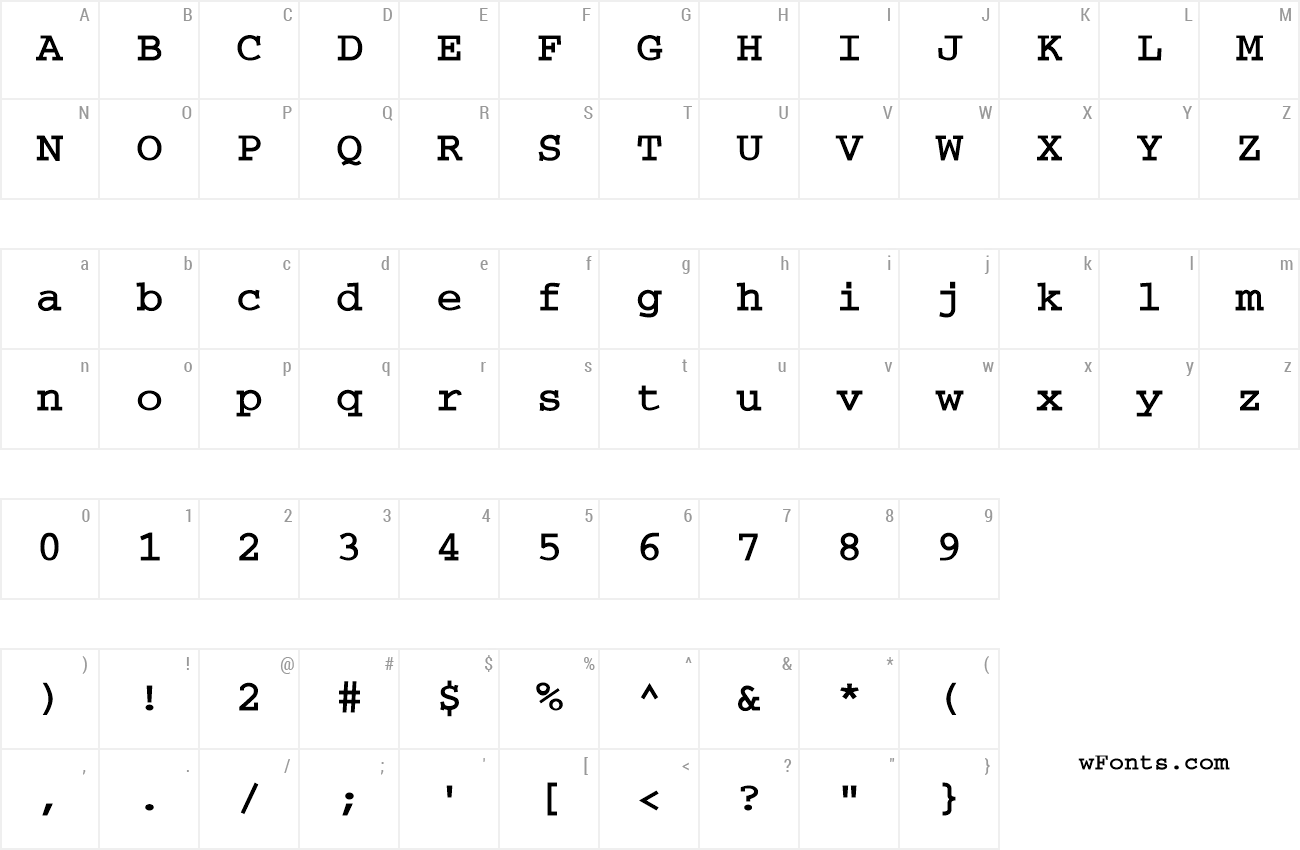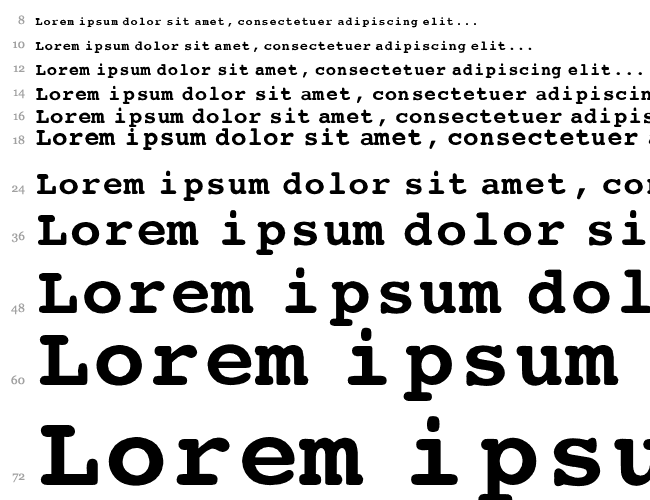
Courier Font Bold
Courier Font Bold - Web courier | adobe fonts. Web the serifs are crisper and less rounded. Unleash your creativity with our free bold,. A monospaced typeface with 4 styles,. The bold weight is a bit darker and the italics are more. The counters are subtly wider. Explore courier designed by howard kettler at adobe fonts.
The bold weight is a bit darker and the italics are more. Explore courier designed by howard kettler at adobe fonts. Unleash your creativity with our free bold,. Web the serifs are crisper and less rounded. Web courier | adobe fonts. A monospaced typeface with 4 styles,. The counters are subtly wider.
The counters are subtly wider. Explore courier designed by howard kettler at adobe fonts. Web courier | adobe fonts. The bold weight is a bit darker and the italics are more. Unleash your creativity with our free bold,. A monospaced typeface with 4 styles,. Web the serifs are crisper and less rounded.
Identifont Courier Bold
Web courier | adobe fonts. A monospaced typeface with 4 styles,. The bold weight is a bit darker and the italics are more. Unleash your creativity with our free bold,. The counters are subtly wider.
A monospaced typeface with 4 styles,. Web the serifs are crisper and less rounded. Unleash your creativity with our free bold,. The counters are subtly wider. The bold weight is a bit darker and the italics are more.
Explore courier designed by howard kettler at adobe fonts. A monospaced typeface with 4 styles,. The bold weight is a bit darker and the italics are more. The counters are subtly wider. Web courier | adobe fonts.
Web the serifs are crisper and less rounded. Explore courier designed by howard kettler at adobe fonts. Unleash your creativity with our free bold,. The bold weight is a bit darker and the italics are more. Web courier | adobe fonts.
A monospaced typeface with 4 styles,. Explore courier designed by howard kettler at adobe fonts. Web courier | adobe fonts. The bold weight is a bit darker and the italics are more. The counters are subtly wider.
The counters are subtly wider. Web the serifs are crisper and less rounded. The bold weight is a bit darker and the italics are more. A monospaced typeface with 4 styles,. Unleash your creativity with our free bold,.
Explore courier designed by howard kettler at adobe fonts. Web the serifs are crisper and less rounded. Unleash your creativity with our free bold,. Web courier | adobe fonts. The bold weight is a bit darker and the italics are more.
Unleash your creativity with our free bold,. A monospaced typeface with 4 styles,. Web the serifs are crisper and less rounded. Explore courier designed by howard kettler at adobe fonts. The counters are subtly wider.
Web the serifs are crisper and less rounded. Web courier | adobe fonts. Unleash your creativity with our free bold,. The bold weight is a bit darker and the italics are more. Explore courier designed by howard kettler at adobe fonts.
A Monospaced Typeface With 4 Styles,.
The bold weight is a bit darker and the italics are more. Web the serifs are crisper and less rounded. Unleash your creativity with our free bold,. Web courier | adobe fonts.
The Counters Are Subtly Wider.
Explore courier designed by howard kettler at adobe fonts.